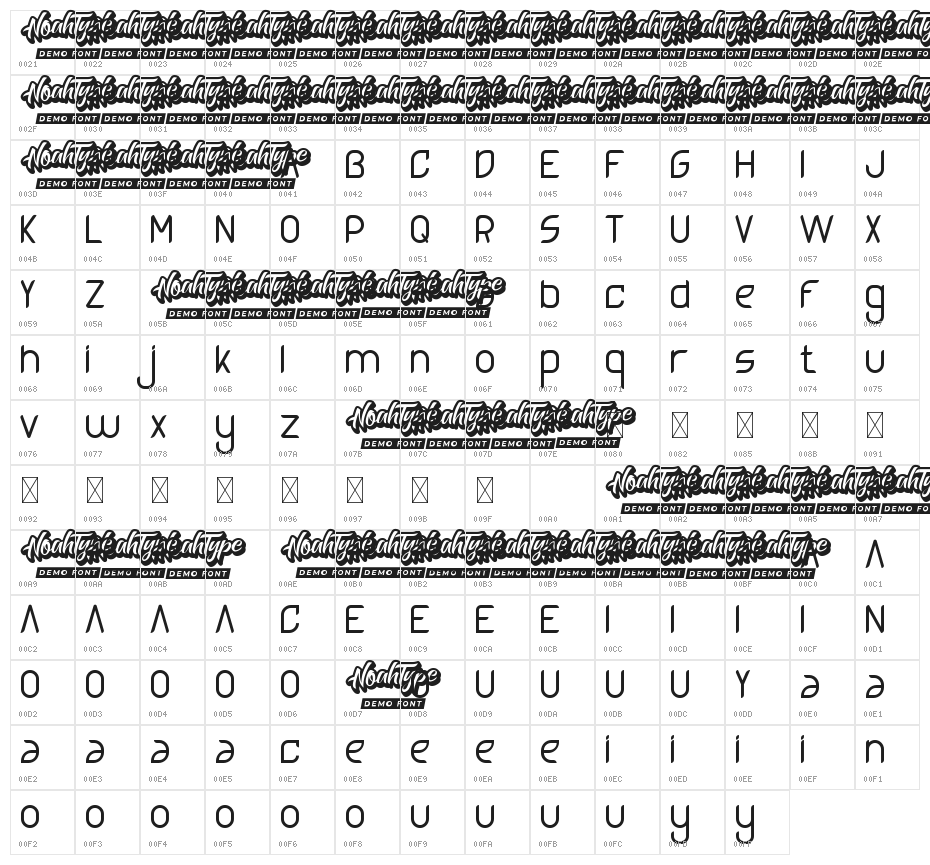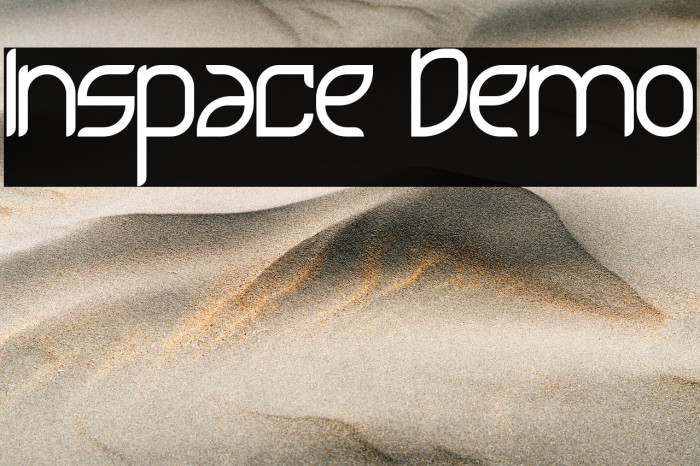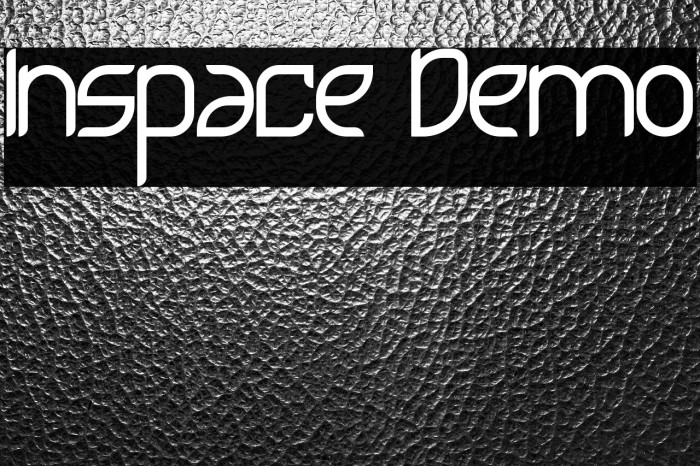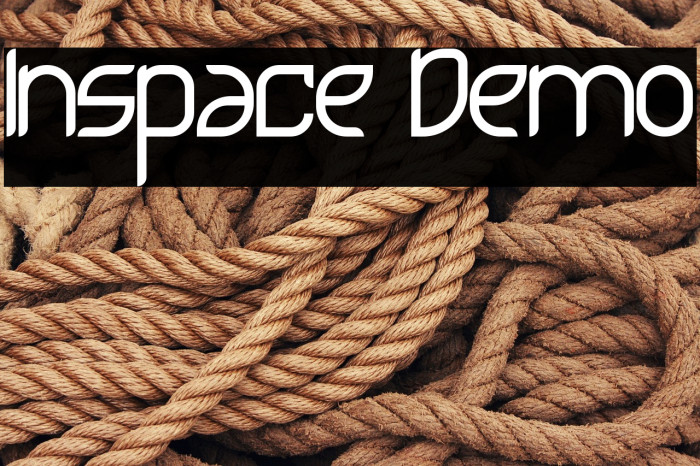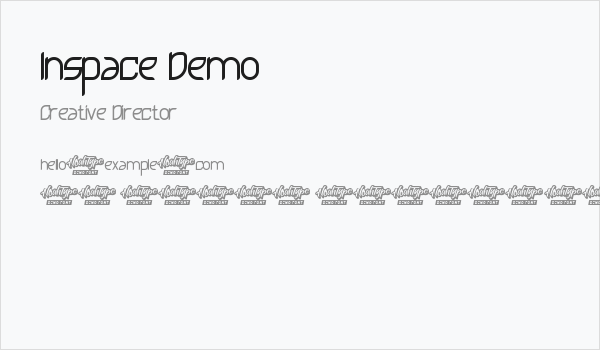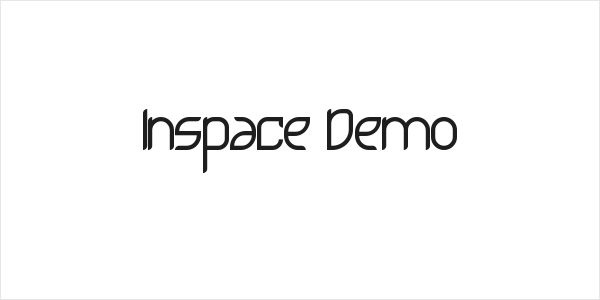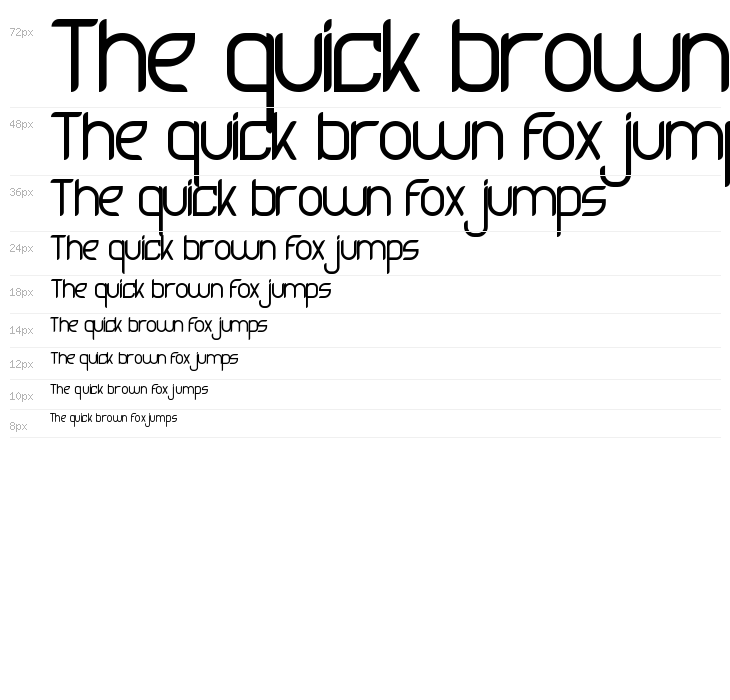
Inspace Demo Font
Inspace Demo Description
This font features a sleek, futuristic design with geometric shapes and clean lines. The uppercase letters are bold and angular, while the lowercase letters maintain a consistent style with rounded edges that complement the overall modern aesthetic. The numbers and special characters follow the same design principles, ensuring a cohesive look across all characters. This font is ideal for projects that require a contemporary and innovative feel, such as technology branding, sci-fi themed designs, or modern advertising campaigns.
| Overall Style | Futuristic |
| Use Case | Headlines, Logos, Branding |
| Proposed Projects | Ideal for technology branding, sci-fi themed designs, modern advertising campaigns, and innovative product packaging. |